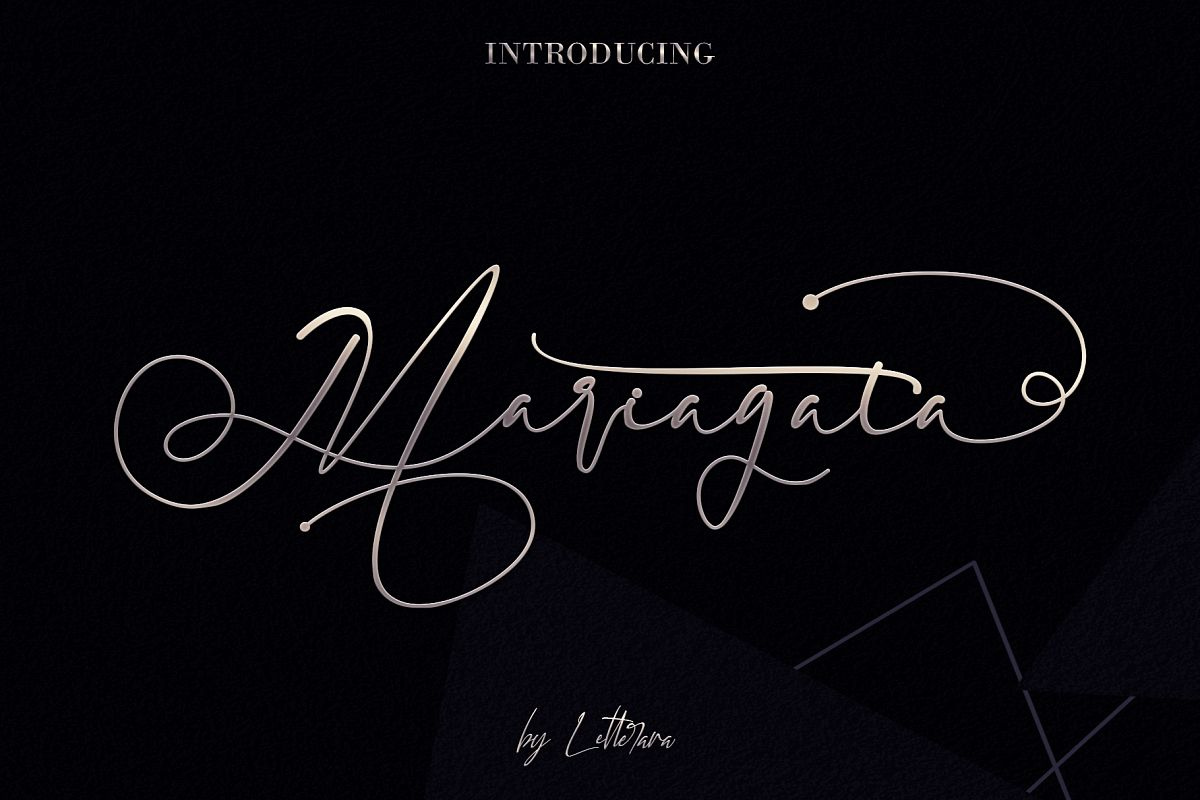
Mariagata Font
Mariagata Font is perfect for elegant bridal services, sophisticated wedding invitations, luxury romance branding, upscale event planning, refined feminine products, graceful lifestyle marketing, cultured hospitality communications, and romantic advertising campaigns. This enchanting typeface works beautifully in both digital applications and print media where romantic sophistication and feminine elegance are essential design elements.
What makes Mariagata Font so exciting is its exquisite interpretation of romantic grace and feminine sophistication through flowing letterforms that seem designed with the same delicate artistry and emotional sensitivity that creates the most memorable romantic experiences. The font features graceful characters with romantic proportions, elegant curves, and refined details that communicate love, sophistication, and the timeless beauty of feminine grace. Its romantic personality and refined heritage make it ideal for brands seeking to establish connections with discerning romantic audiences while communicating elegance, emotional depth, and the sophisticated beauty that defines truly memorable romantic celebrations.
The Mariagata Font family includes multiple weight variations with different romantic intensities, along with elegant alternates and sophisticated ornamental elements. Each style maintains the typeface's graceful character while offering comprehensive character sets including refined numerals, romantic punctuation marks, and special symbols designed to enhance romantic communications and elegant branding efforts across various sophisticated contexts.
This extraordinary typeface represents the perfect marriage of romantic tradition and contemporary design functionality for wedding and luxury lifestyle industries. Whether you're developing bridal service identities, creating luxury wedding materials, or designing romantic celebration promotions, Mariagata Font Free Download provides the romantic sophistication and versatility needed to captivate couples seeking elegant experiences. The font's refined appeal makes it particularly effective for wedding planners, luxury event venues, romantic hospitality brands, and businesses celebrating the beauty and sophistication of love and romantic milestones.
The carefully crafted elegant details and optimized romantic performance in Mariagata Font ensure both sophisticated authenticity and clear communication across all romantic applications. Its graceful presence makes it perfect for romantic branding, elegant marketing materials, and sophisticated communications where its full romantic character can create lasting emotional connections with audiences seeking beauty, elegance, and the refined sophistication that makes romantic moments truly unforgettable.